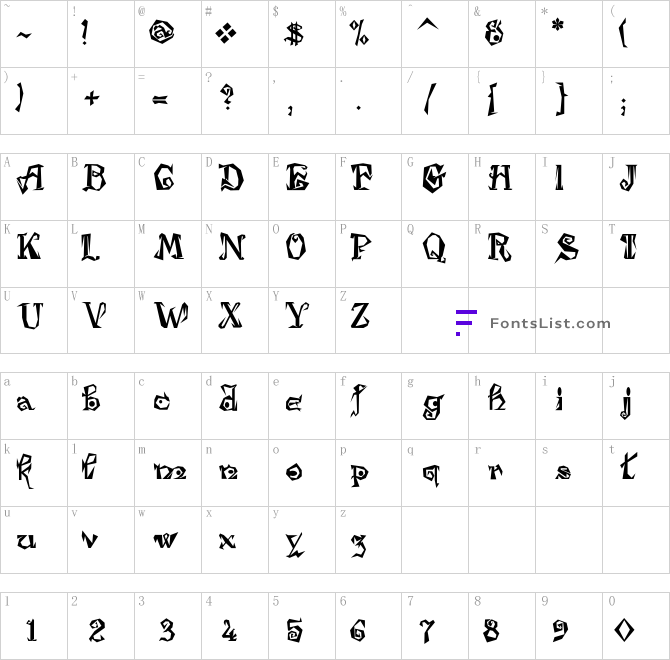
- Font Name:Damosel
Damosel.otf is a very beautiful artistic font, Damosel.otf is widely used in the design and printing of various books and pictures,Damosel.otf has a strong visual impact,Damosel.otf is a commonly used font in newspapers, magazines and books, and is used in posters, e-commerce Poster design, store design, logo design, font design and other fields.Damosel.